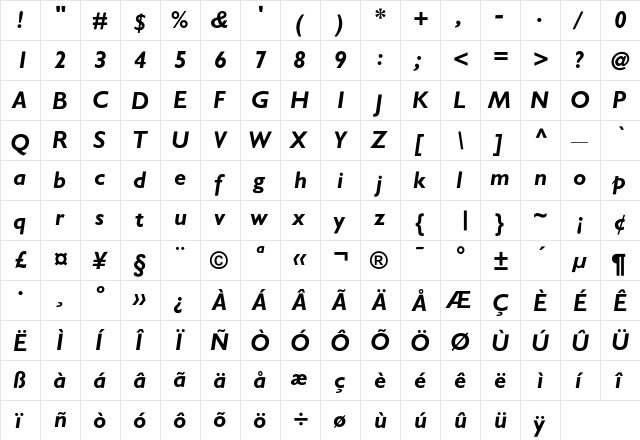
Gentle SansBoldItalic
| Style | SansBoldItalic |
Design Context for Gentle Typeface
Gentle takes a measured approach to typography — its balanced proportions and neutral character make it a reliable workhorse for both digital and print work. The dynamic lean of this cut emphasises speed and emphasis in any layout. The heavy weight commands attention and anchors typographic hierarchies.
Pro Tip: Use Gentle for emphasis, pull quotes, and subheadings where its slanted energy can add rhythm to the layout.